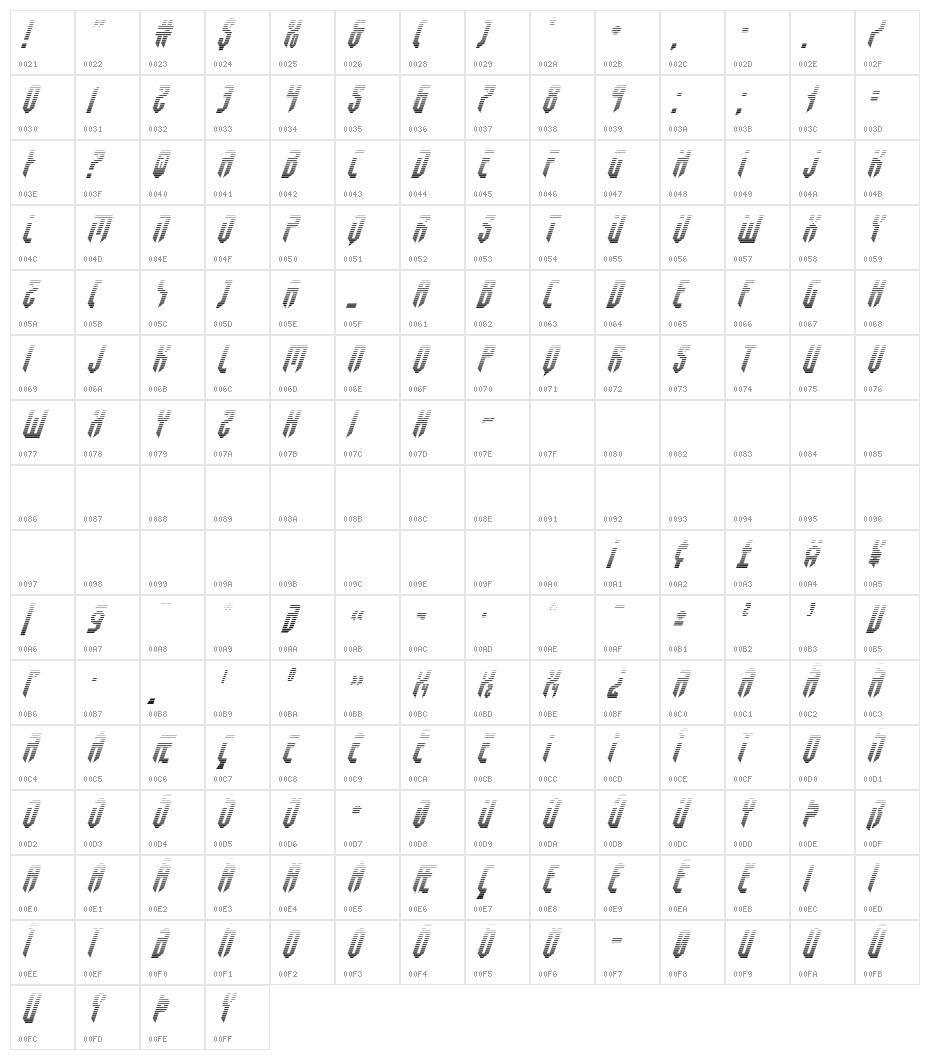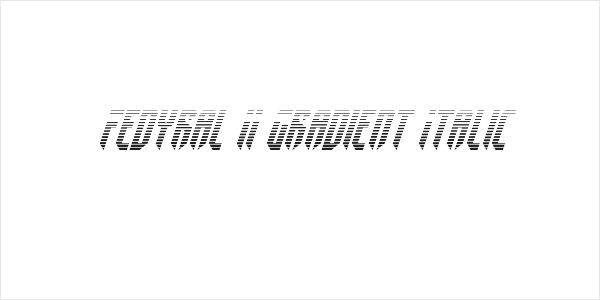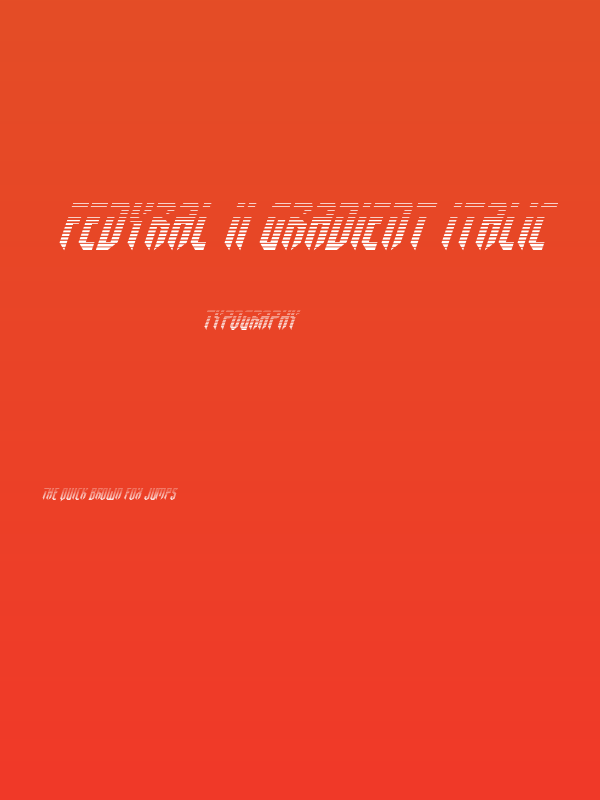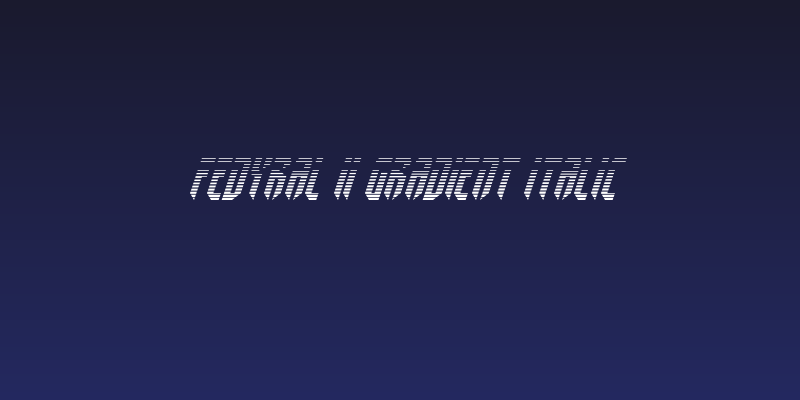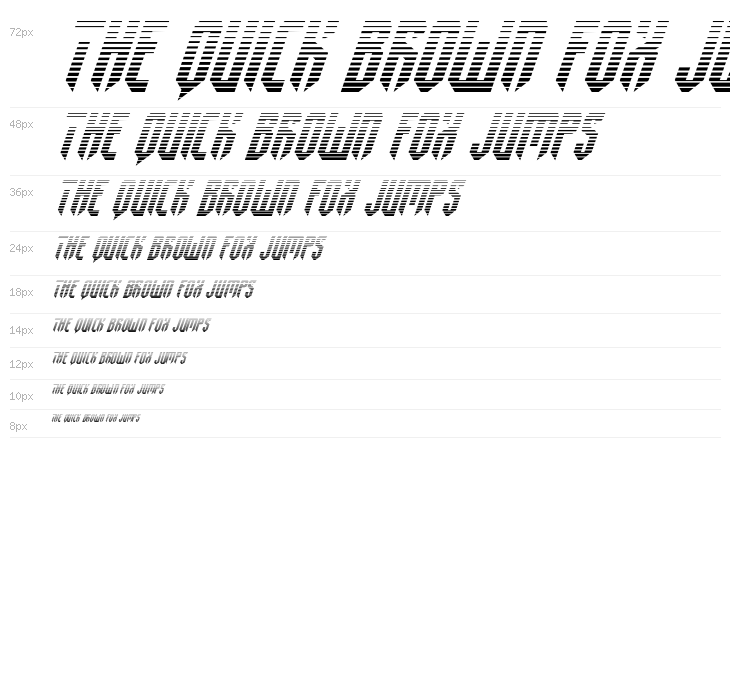
Fedyral II Gradient Italic Font
Fedyral II Gradient Italic Description
This font features a striking, futuristic design with a gradient effect that gives the impression of speed and movement. The characters are italicized, adding a dynamic and forward-leaning appearance. The bold, angular lines are interspersed with horizontal stripes, creating a unique visual texture. This design is highly stylized, making it ideal for projects that require a modern and edgy aesthetic. The font maintains a consistent width across characters, with a medium contrast in stroke thickness, enhancing its readability while preserving its distinctive style.
Overall StyleFuturistic, Dynamic
Proposed ProjectsIdeal for sci-fi themed projects, video game titles, futuristic branding, and dynamic posters.